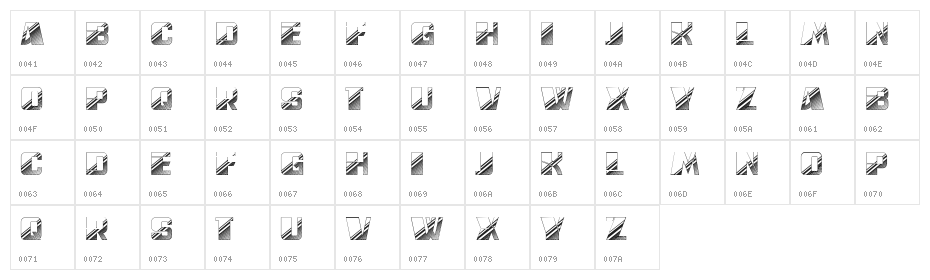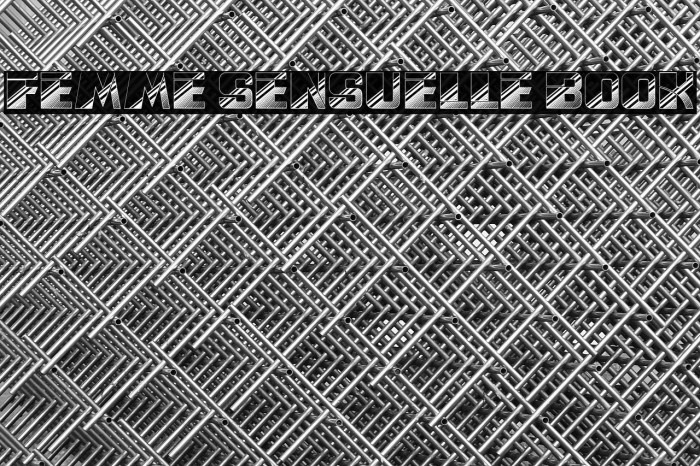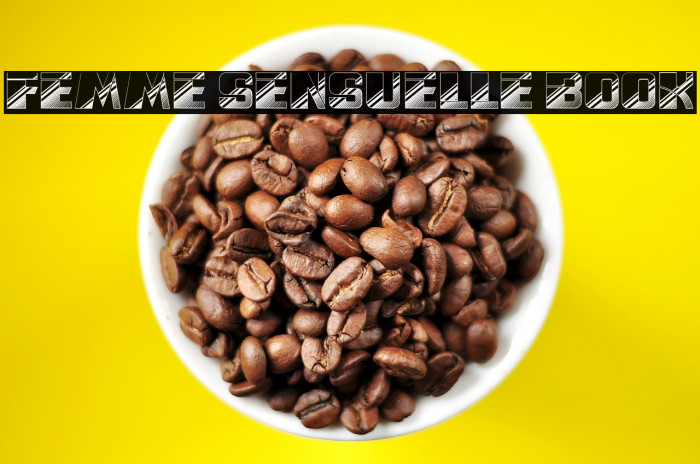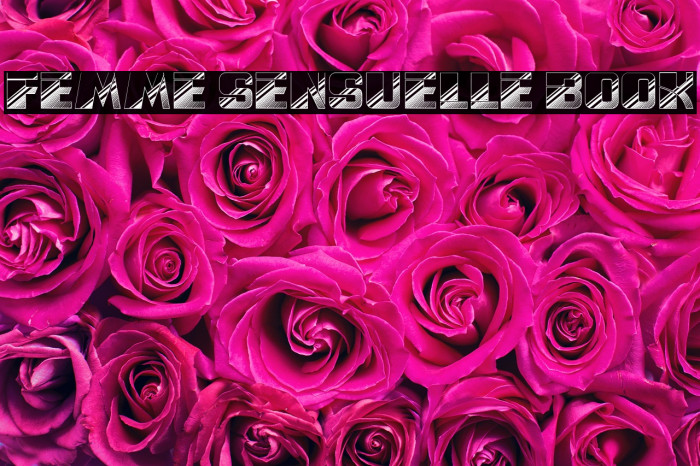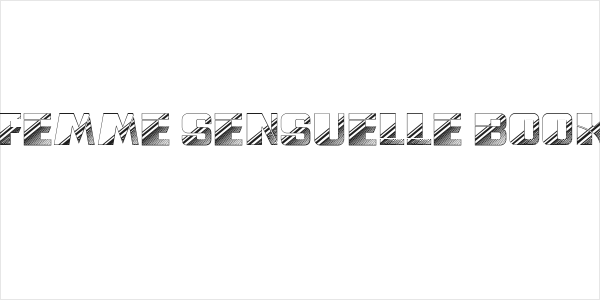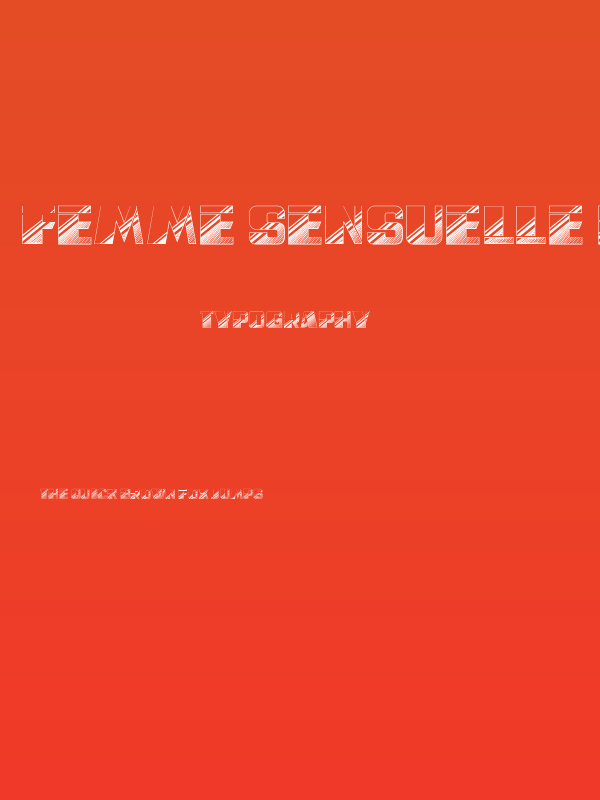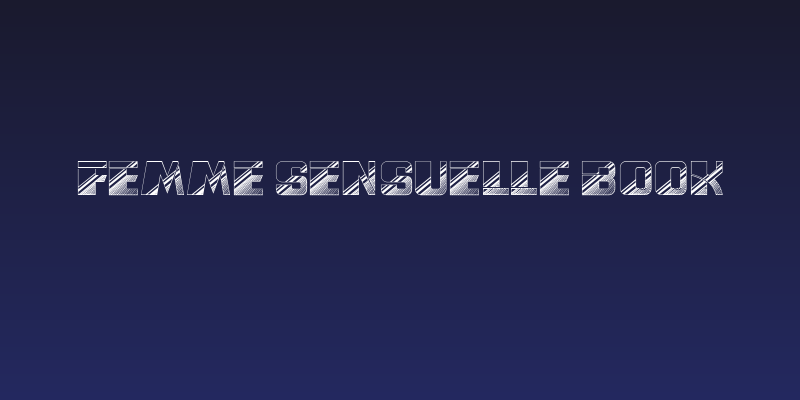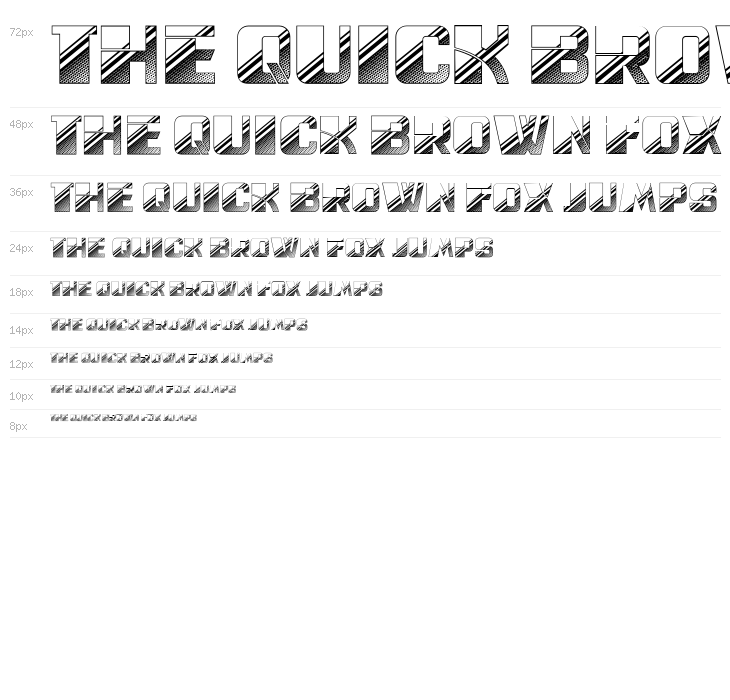
Femme Sensuelle Book Font
Femme Sensuelle Book Description
This font features a bold and decorative style with a unique 3D effect. Each character is designed with a combination of solid and striped patterns, creating a sense of depth and movement. The uppercase letters are particularly striking, with sharp angles and a modern aesthetic. The font's design is both eye-catching and sophisticated, making it suitable for a variety of creative projects. Its geometric shapes and bold lines give it a contemporary feel, while the intricate detailing adds an element of elegance. This font is perfect for making a statement in any design, whether it's for branding, advertising, or artistic purposes.